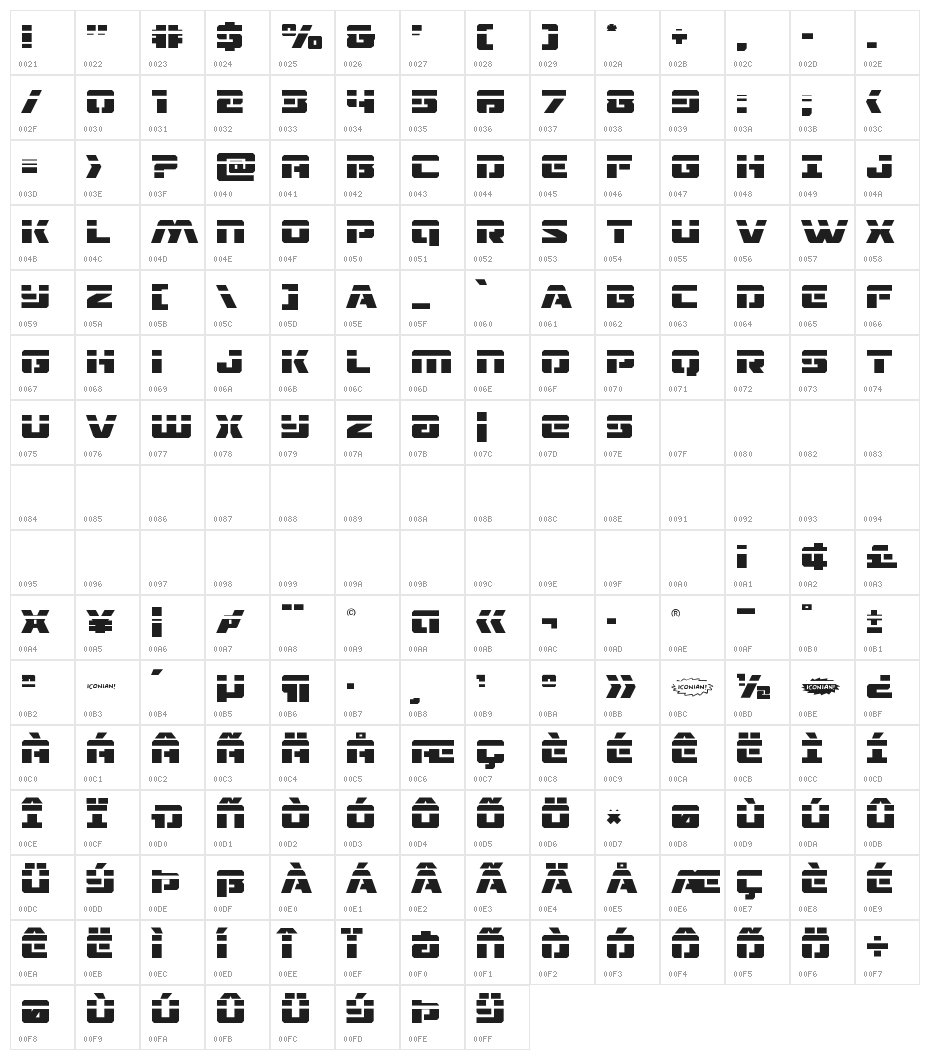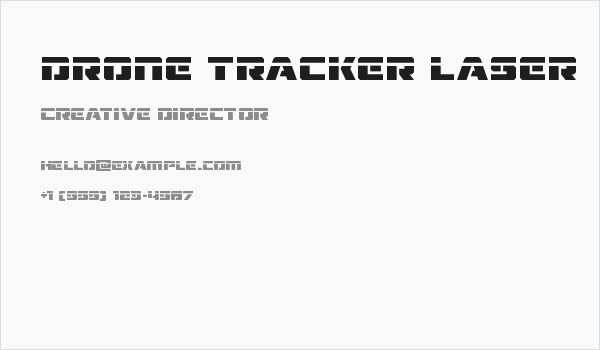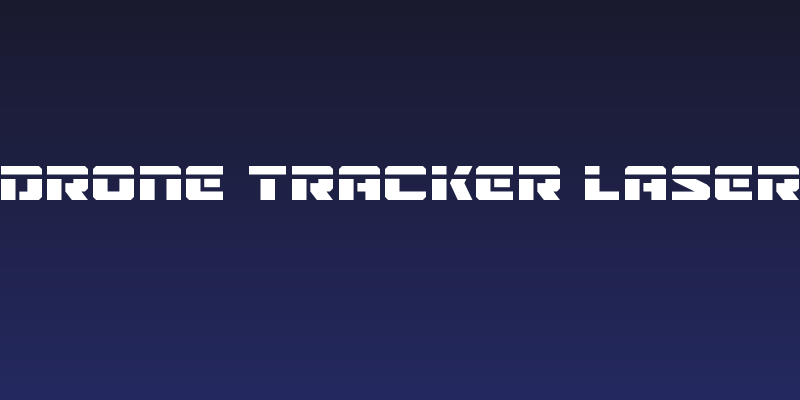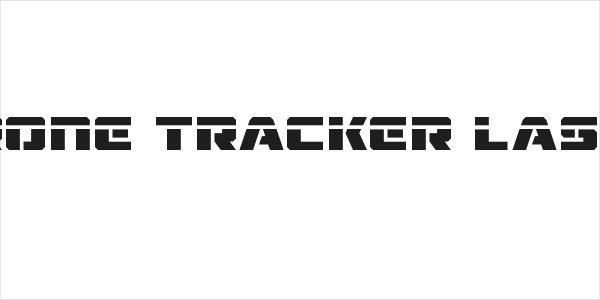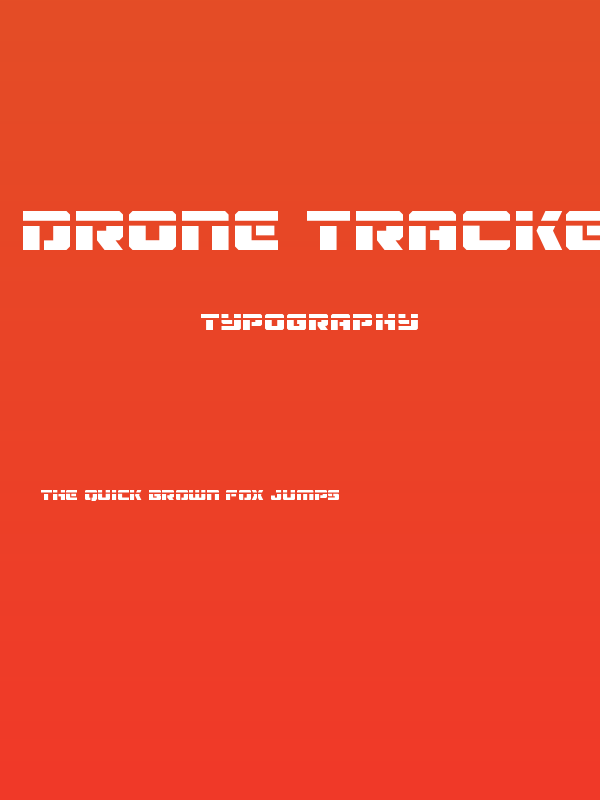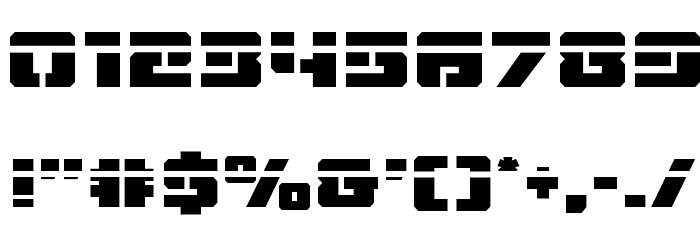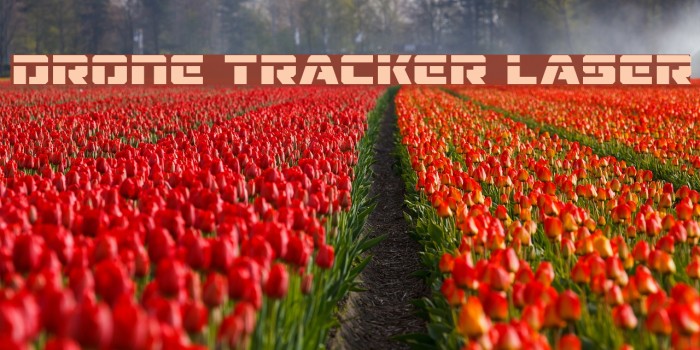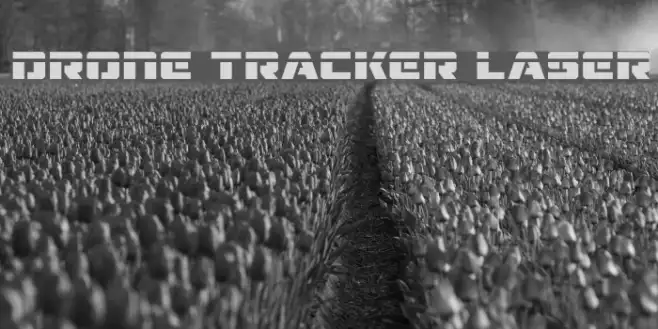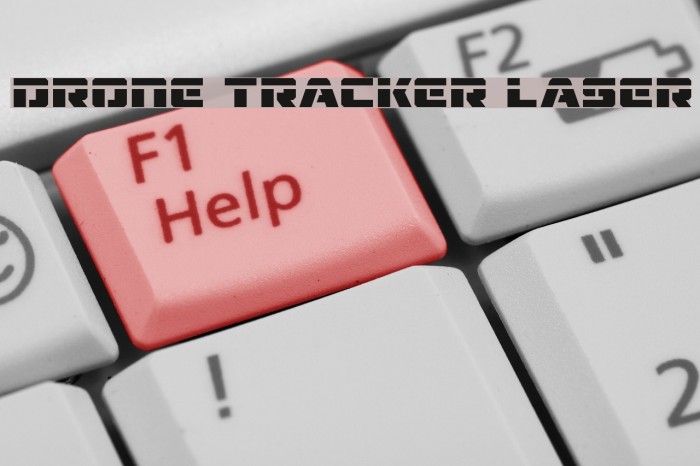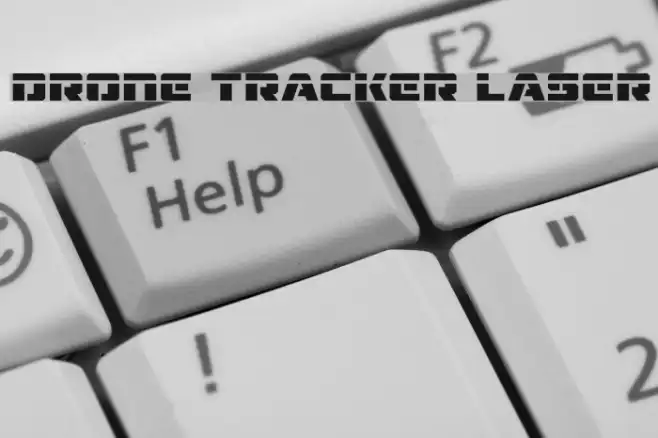
Drone Tracker Laser Font
Drone Tracker Laser Description
This font features a bold, futuristic design with a strong geometric structure. The characters are constructed with sharp angles and straight lines, giving it a mechanical and industrial feel. The uppercase letters are uniform in height, while the lowercase letters maintain a consistent style, enhancing readability. The numbers and special characters follow the same design principles, ensuring a cohesive look across all glyphs. The font's distinct style makes it ideal for projects that require a modern and edgy appearance.
| Proposed Projects | Ideal for technology branding, video game titles, sci-fi movie posters, and modern advertising campaigns. |